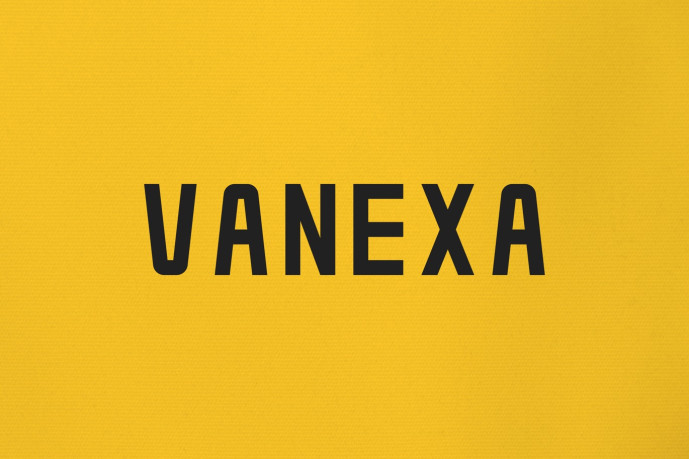
Vanexa – Modern Sans Serif Font
Vanexa – Modern Sans Serif Font is a bold and authentic display font. The font is suitable for any branding project like logo, esport, and many more. outstanding in a wide range of contexts.
Uppercase
Lowercase